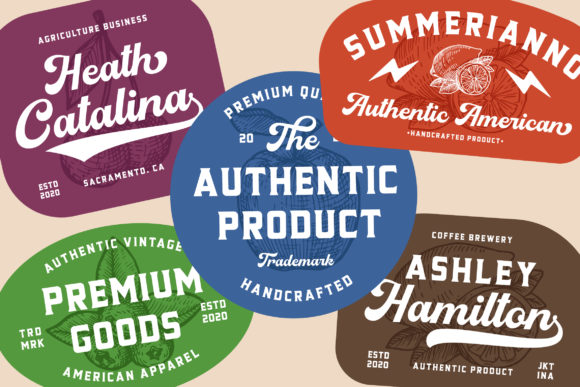
Mexiland Font
db-ku.com - Script & Handwritten -- Mexiland is a gorgeous and daring script font, crafted to give your headlines and logotype projects a stylish touch. This font reads as strong, confident, and dynamic and can add tons of vintage character to your designs.